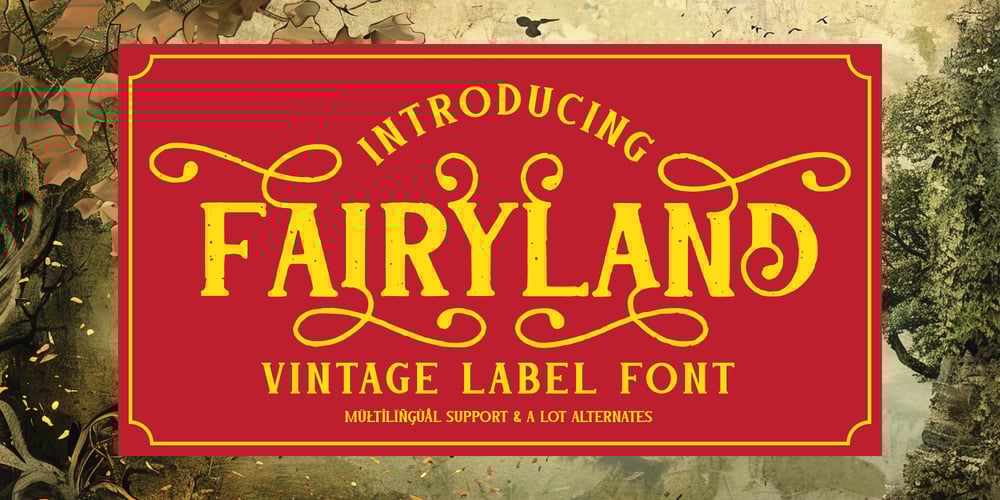
Fairyland Font Family was designed by Oleg Voznyy and published by Vozzy. Fairyland contains 2 styles and family package options. Introducing vintage label font named Fairyland. This font family has an additional characters and multilingual support (check out all available characters on preview). The font family has two styles: Regular and Rough. This font will look good on any vintage styled designs like a poster, T-shirt, label, logo, etc.–Uppercase